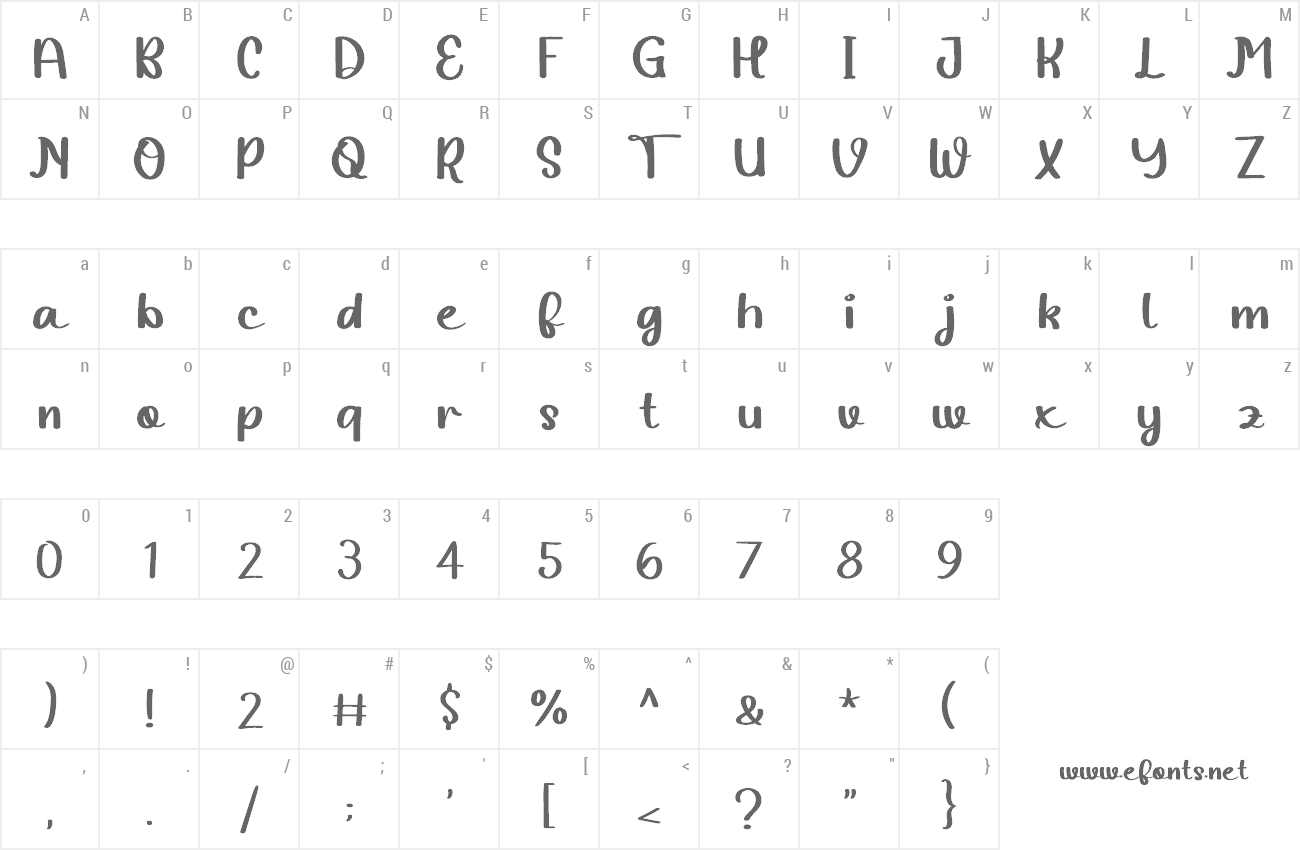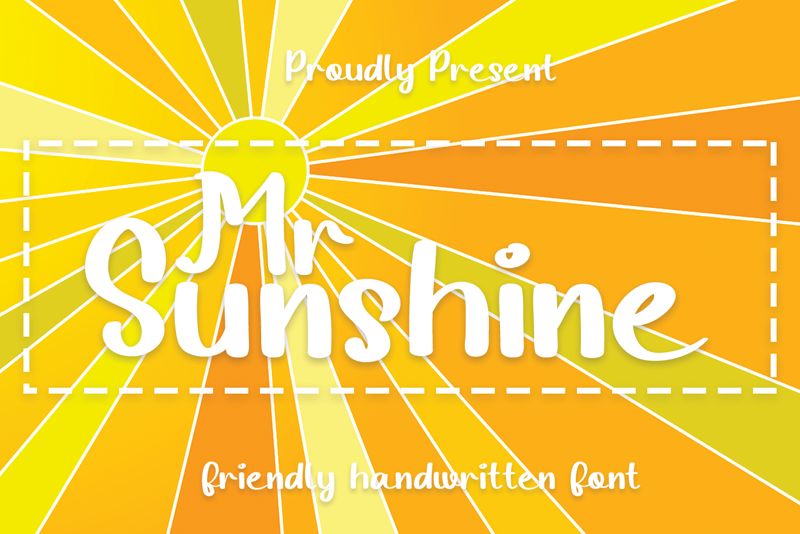
| Font name: | Mr Sunshine |
| Author: | Luluk Surotul |
Mr Sunshine is a cute, friendly and fun handwritten font. This font is perfect for children themed designs, especially when combined with bright colors. Attention : Mr Sunshine handwriting Font is prohibited to use this font for commercial purposes or for profit without the permission of the author/admin, without being known to use this font without permission, will be subject to sanctions 5x the specified price. This font is used only for demos (Demo license) If you want to use this font for commercial use please contact email: elllulukstudio123@gmail.com or click the link below: https://www.creativefabrica.com/product/13885188/ref/761303/ If you want to see more other fonts, please click: https://www.creativefabrica.com/designer/el_hotcig/ref/761303/ Any donations are very appreciated. Paypal account for donation: https://www.paypal.com/paypalme/luluk783 thanks. |